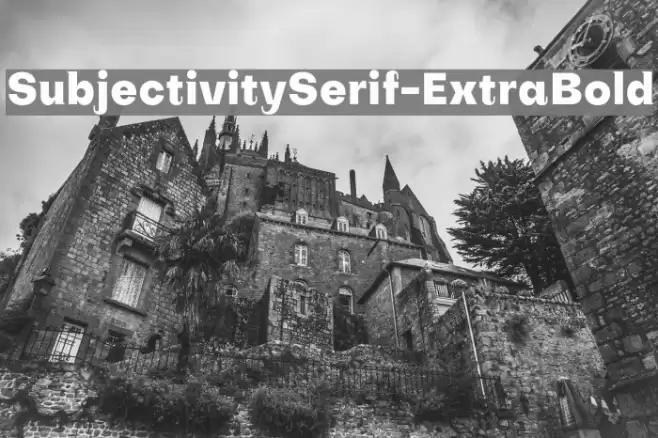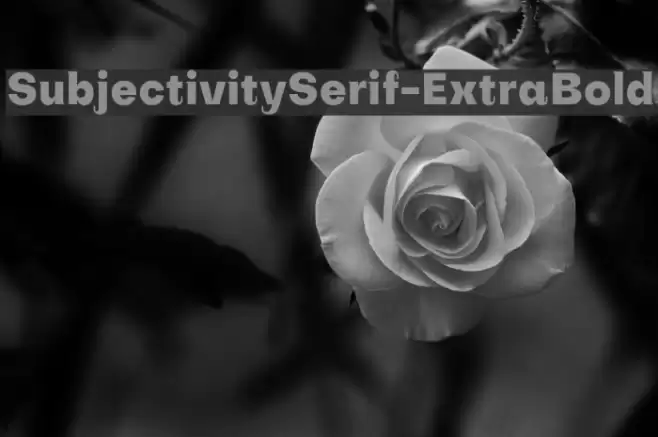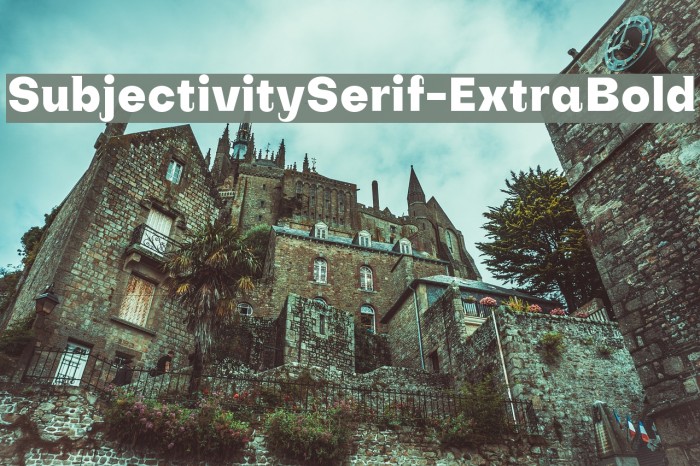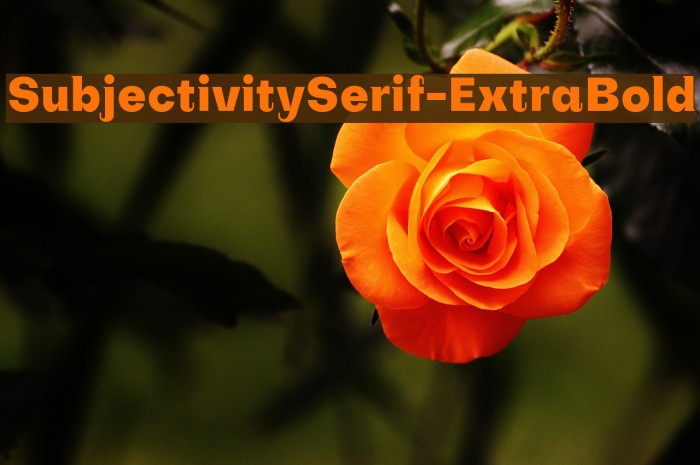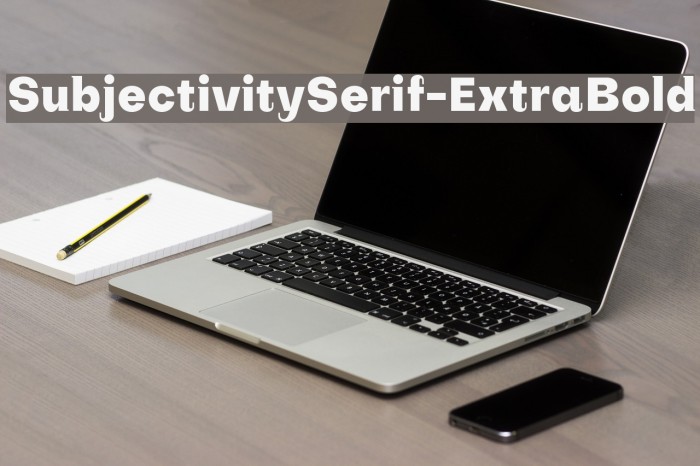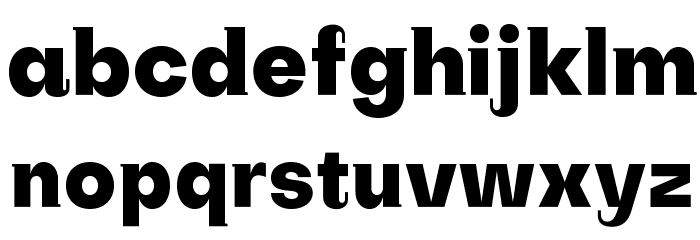
SubjectivitySerif-ExtraBold Font
SubjectivitySerif-ExtraBold Description
This font exhibits a bold and commanding presence with its extra-bold weight, making it ideal for attention-grabbing headlines and impactful designs. The characters are well-defined with a strong geometric influence, providing a modern and clean aesthetic. The uppercase and lowercase letters maintain a consistent style, ensuring readability and uniformity across different text sizes. The numerals and special characters are equally robust, contributing to the font's versatility. Its design is straightforward yet powerful, suitable for various applications where clarity and emphasis are required.
A bold, modern font with a strong geometric influence, ideal for impactful designs from Uncategorized fonts.